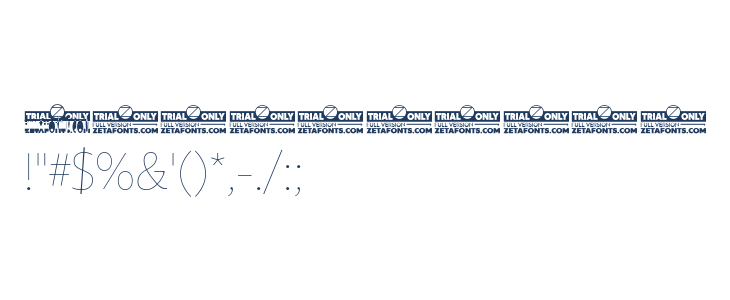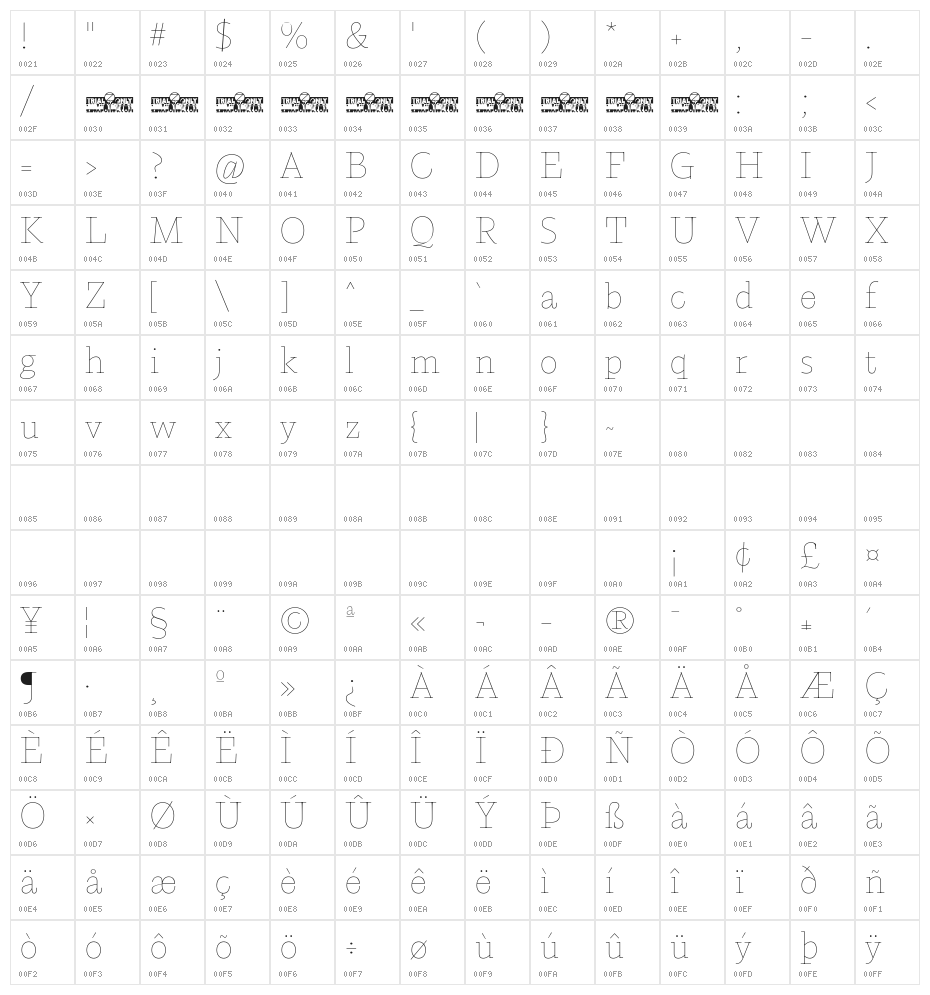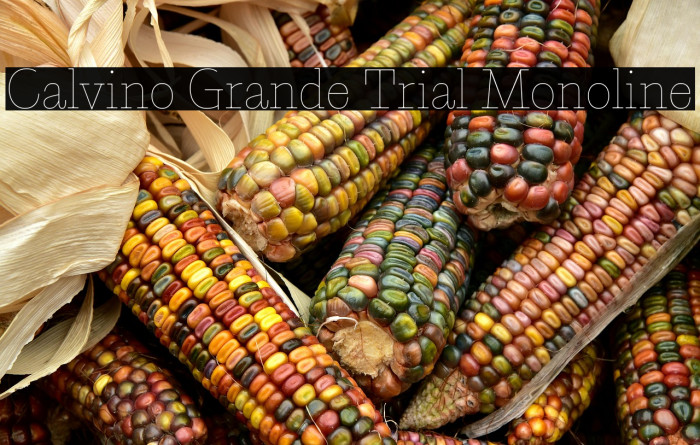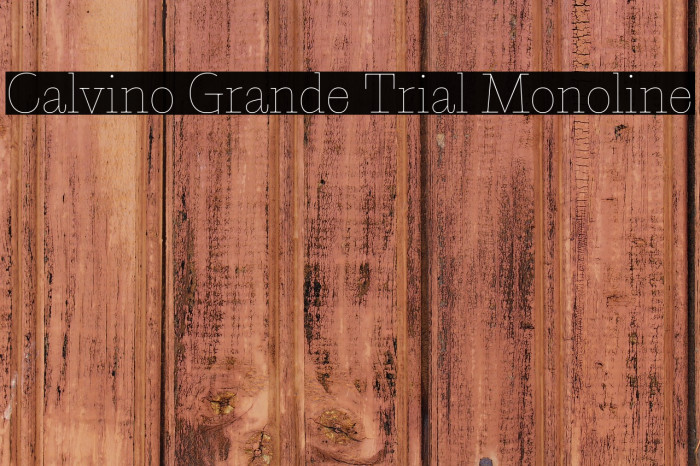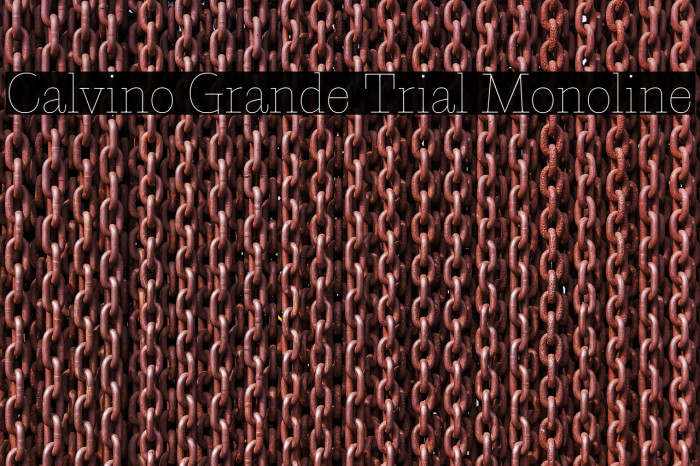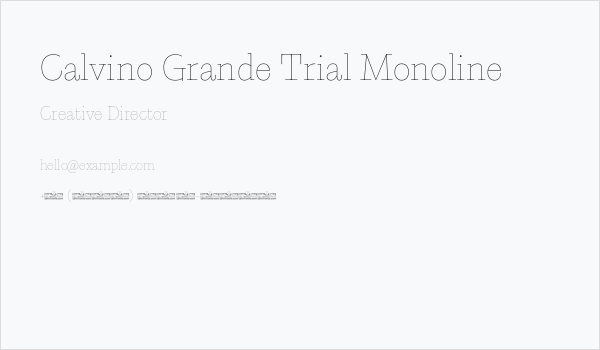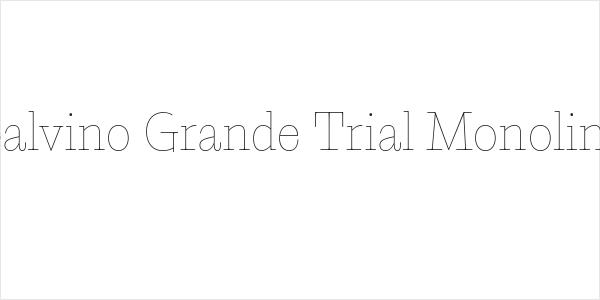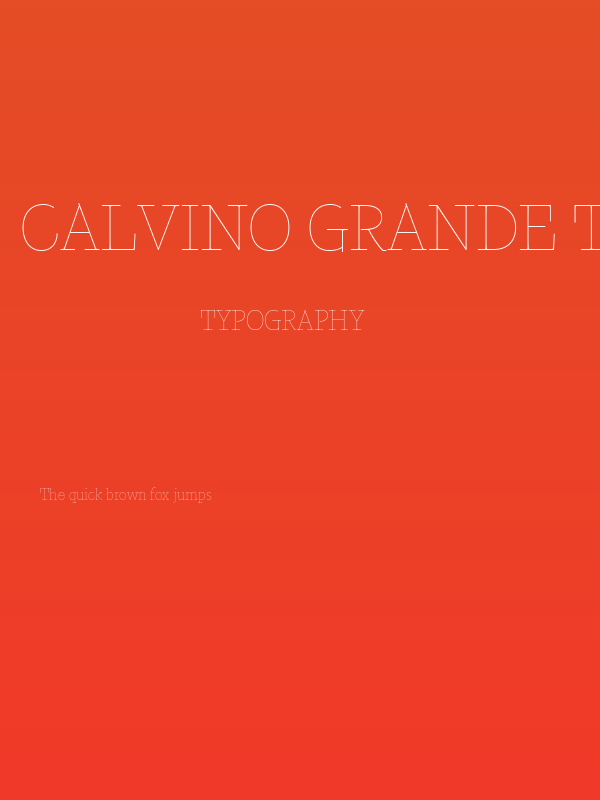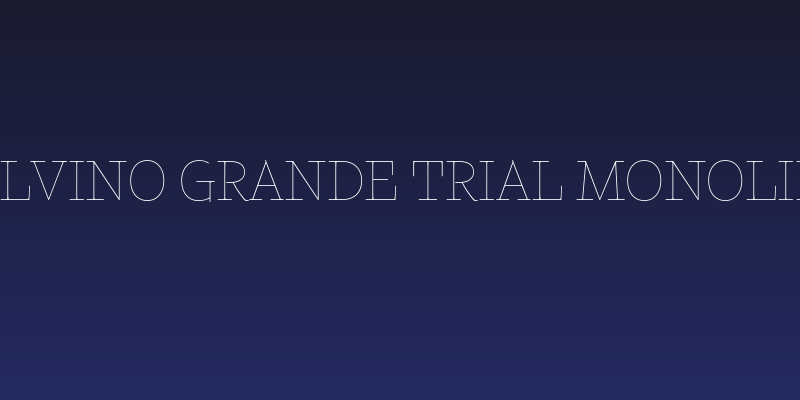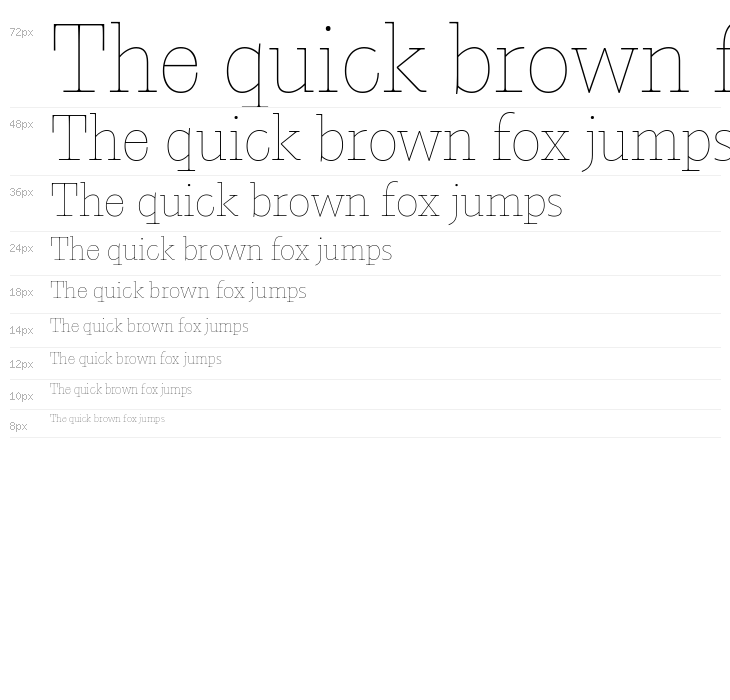
Calvino Grande Trial Monoline Font
Calvino Grande Trial Monoline Description
This font features a clean and elegant monoline design, characterized by consistent stroke widths throughout each character. The uppercase and lowercase letters maintain a harmonious balance, with a slightly extended height that adds a touch of sophistication. The numerals and special characters are crafted with the same attention to detail, ensuring uniformity across all elements. Its simplicity and clarity make it highly legible, while the subtle curves and angles provide a modern aesthetic. The font's overall appearance is both refined and versatile, suitable for a wide range of applications.
Proposed ProjectsIdeal for branding, editorial design, web design, and minimalist graphic projects.